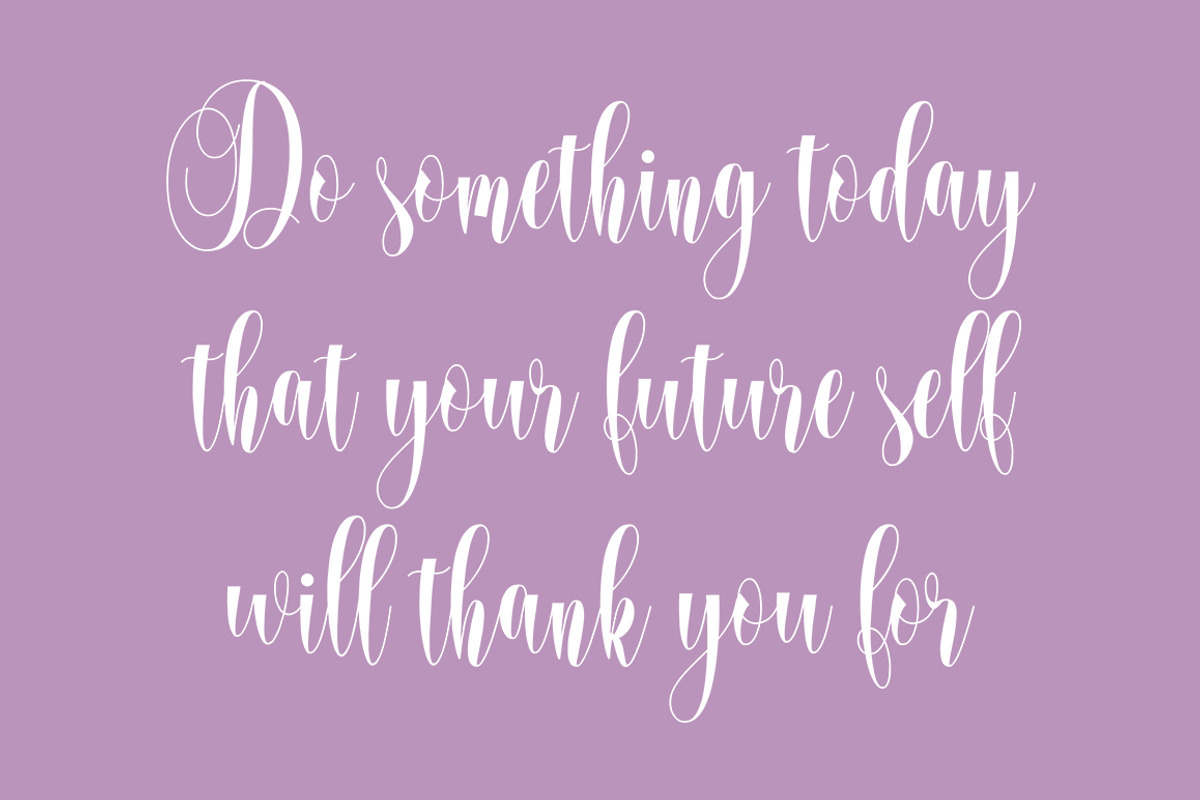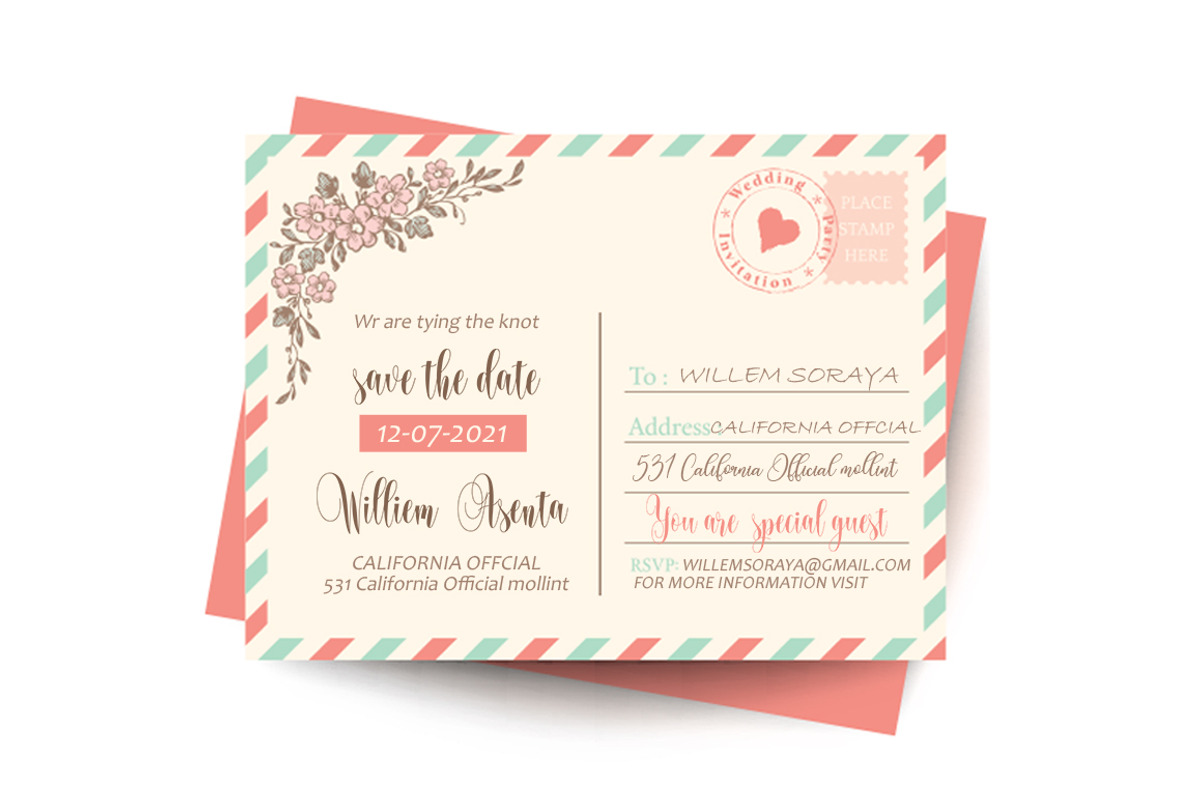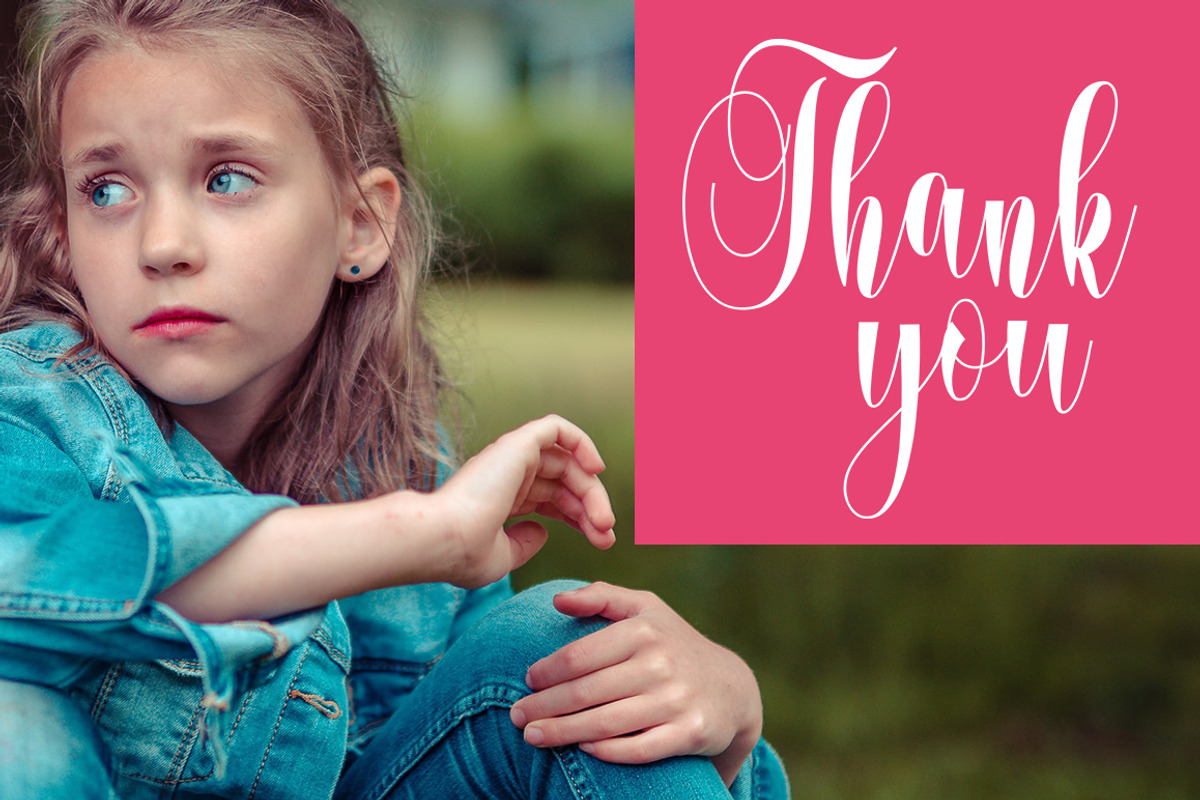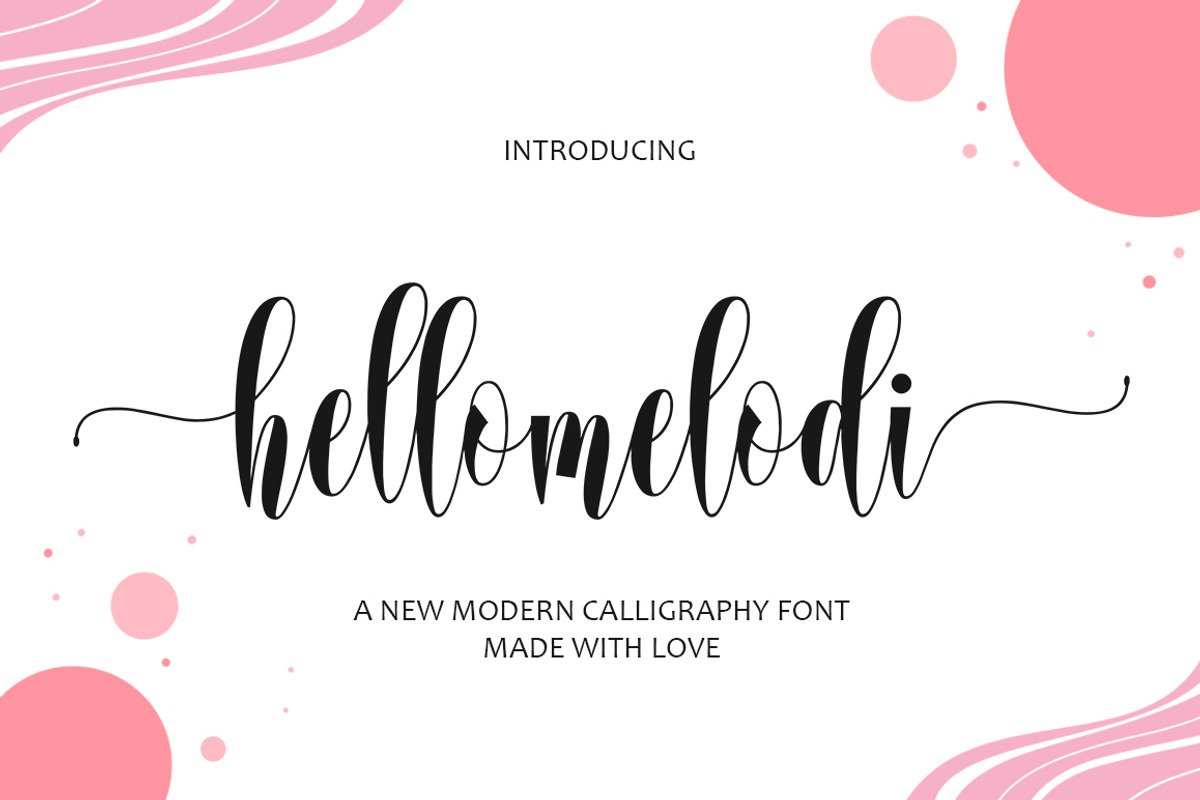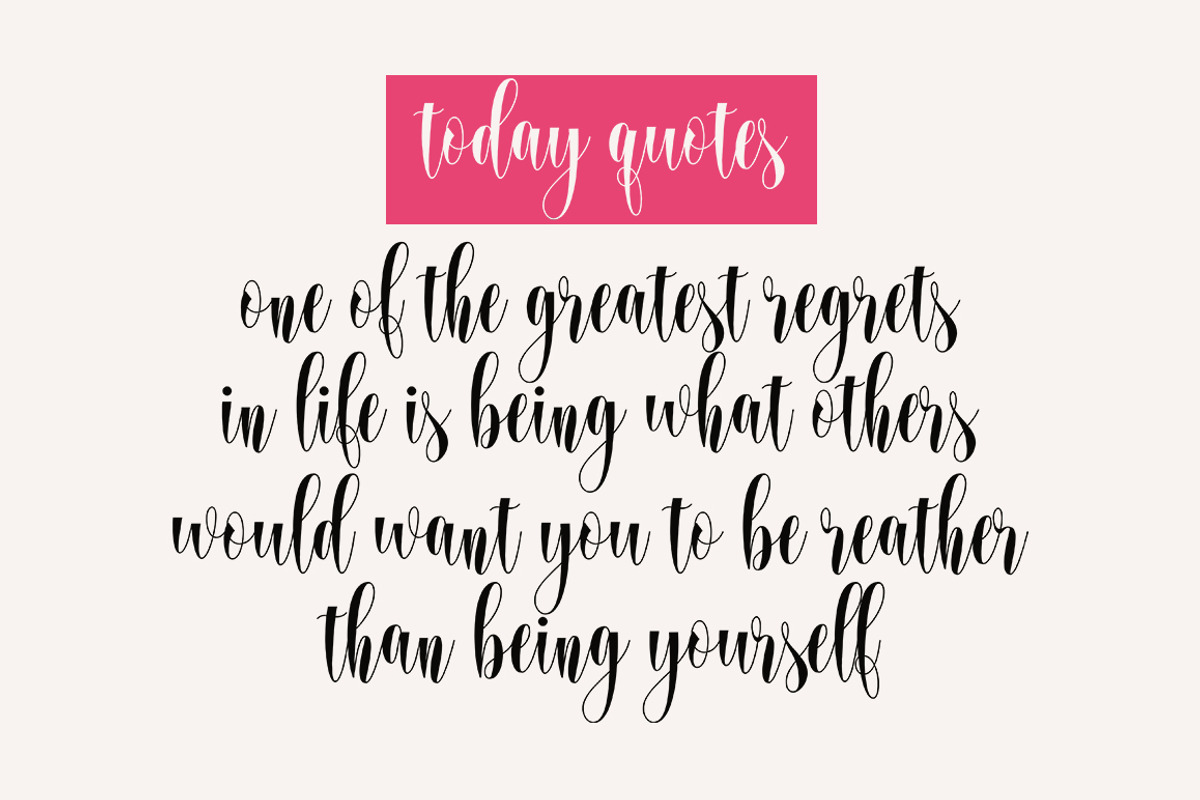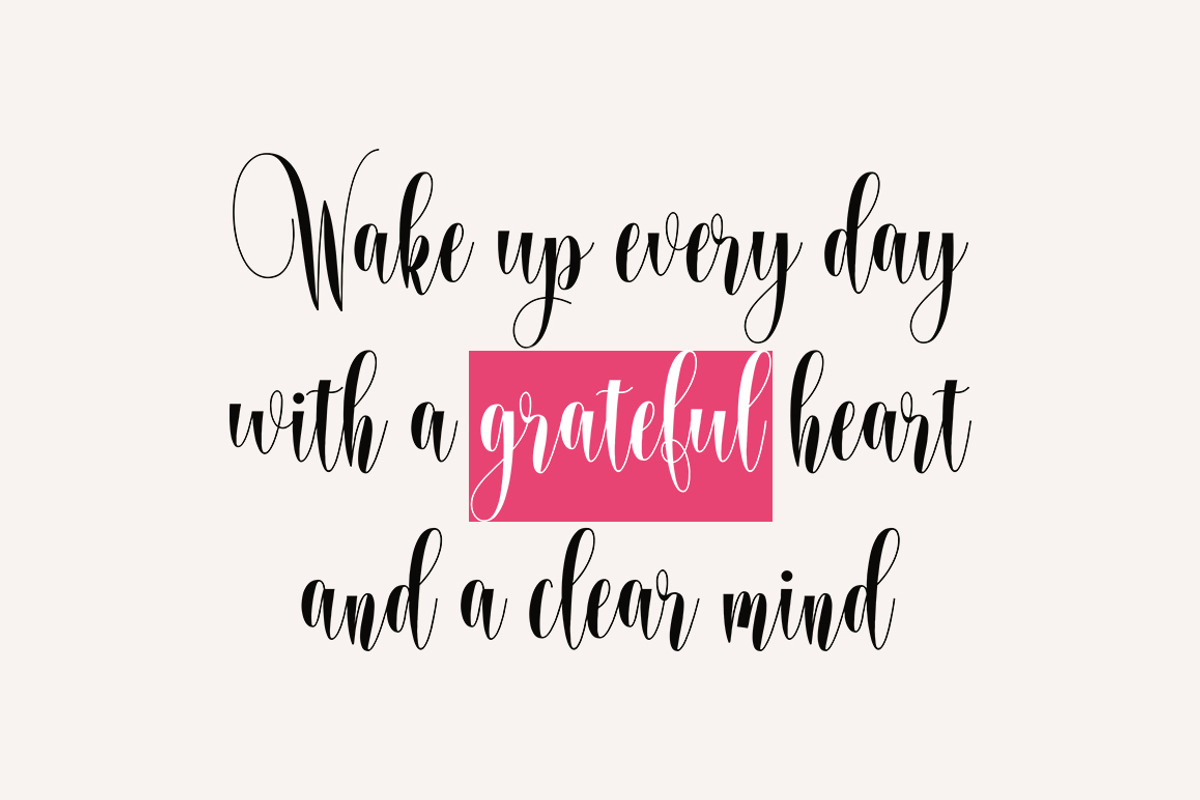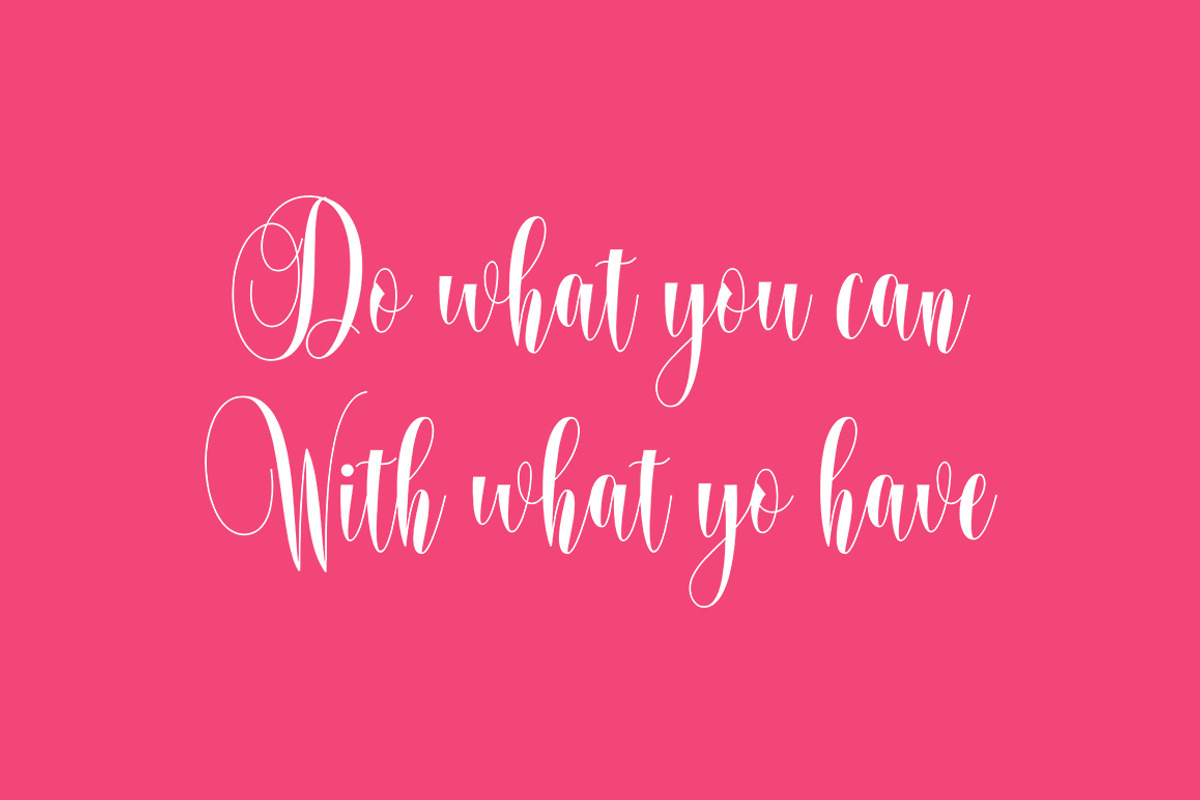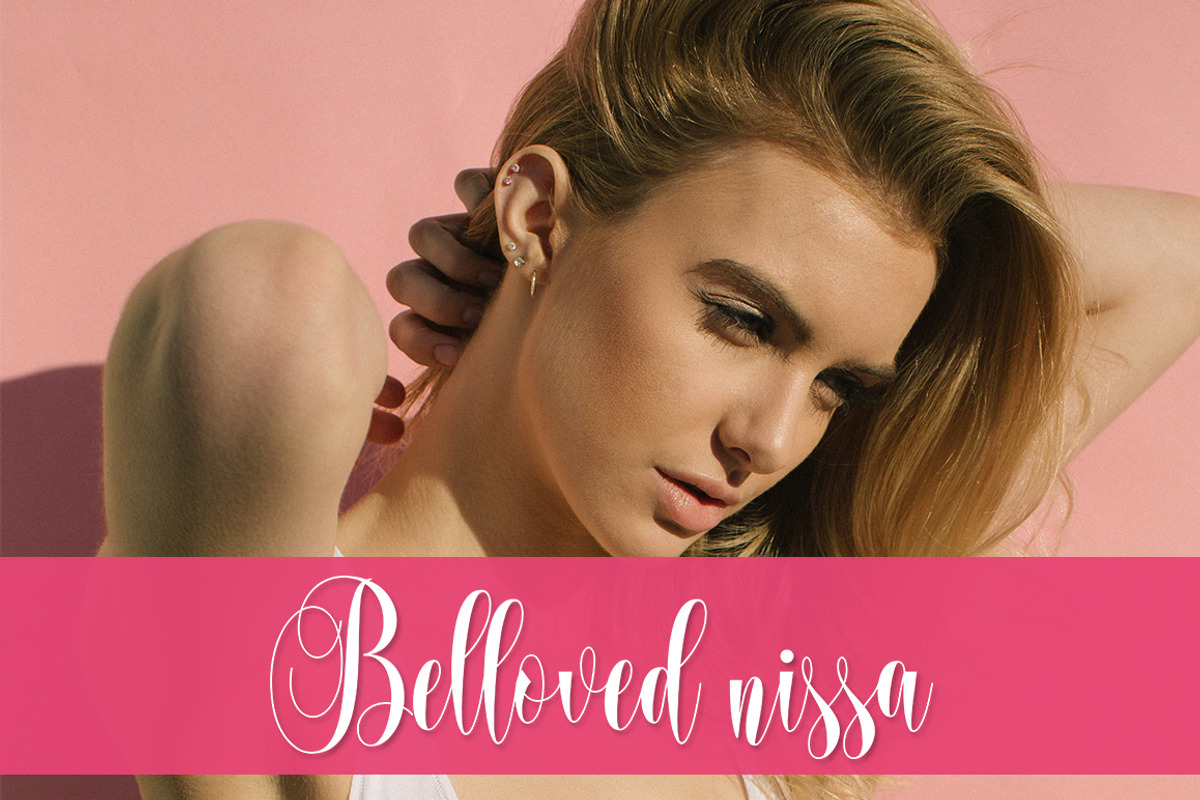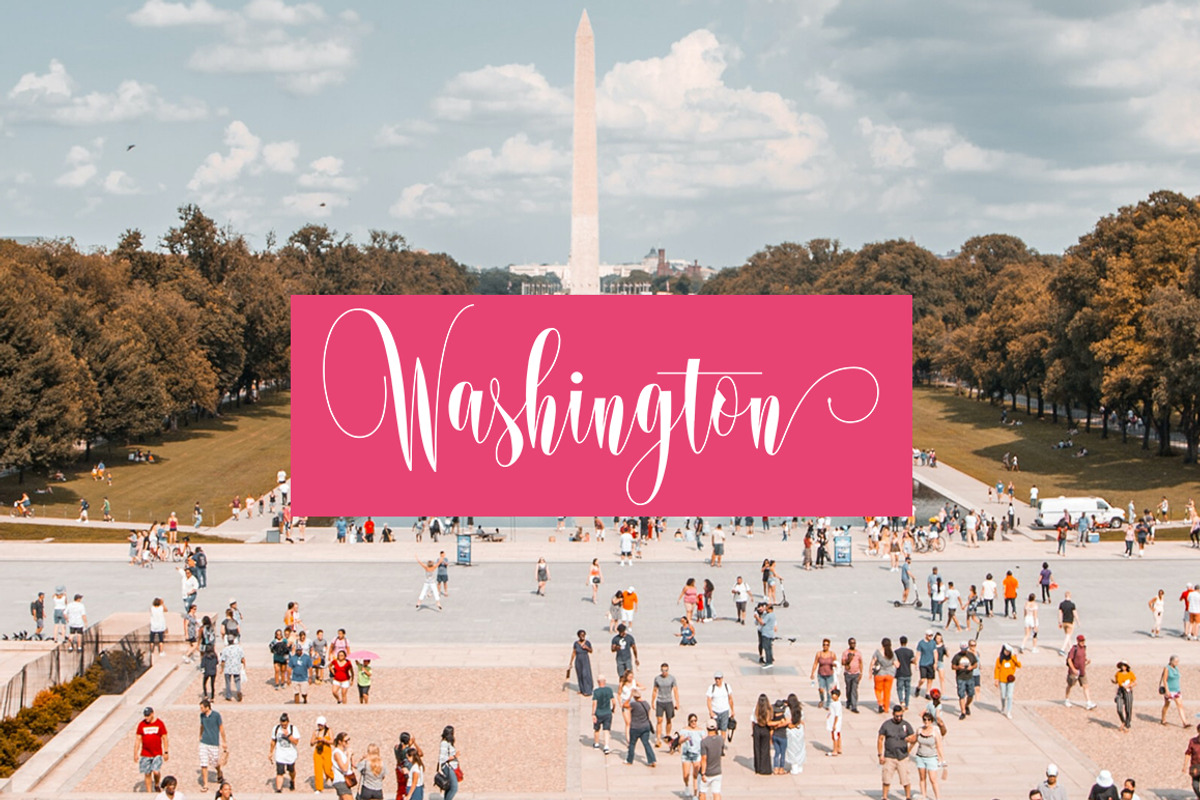
hellomelodi
hellomelodi Script is a modern calligraphy font featuring basic variations, fine lines, a beautiful and elegant touch.
hellomelodi is attractive because it has to be, clean, feminine, sensual, glamorous, simple and very easy to read, because there are many fancy letter joints. I also offer a number of decent stylistic alternatives for multiple letters. Classic styles are very suitable to be applied in various formal forms such as invitations, labels, restaurant menus, logos, fashion, make up, stationery, novels, magazines, books, greeting / wedding cards, packaging, labels or all kinds of advertising purposes. . . . .
hellomelodi has 300+ Glyph alternative characters, including multiple language support. With OpenType features with alternative styles and elegant binding. The OpenType feature works automatically, but you can access it manually and for the best results necessary for your creativity in combining these Glyph variations.